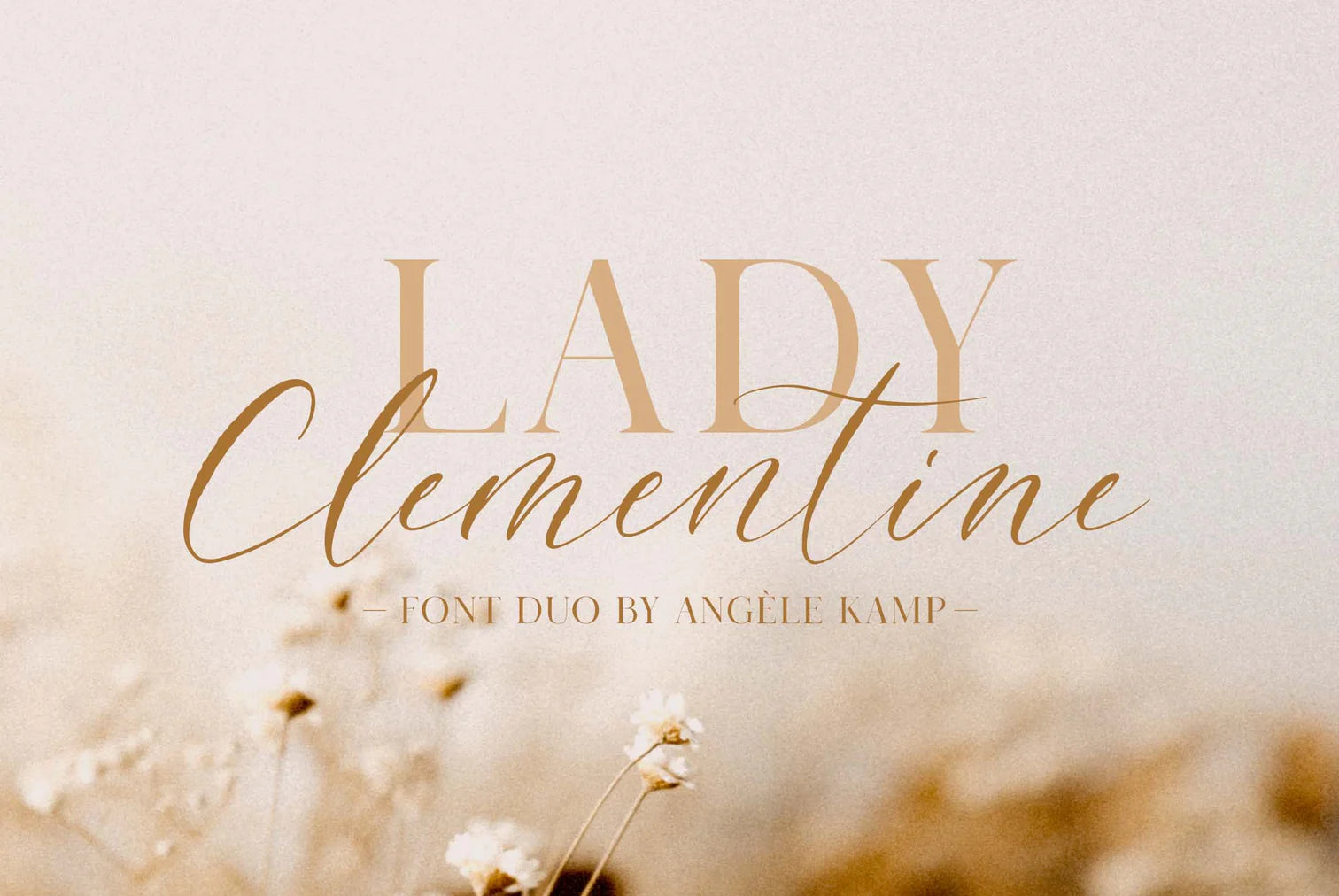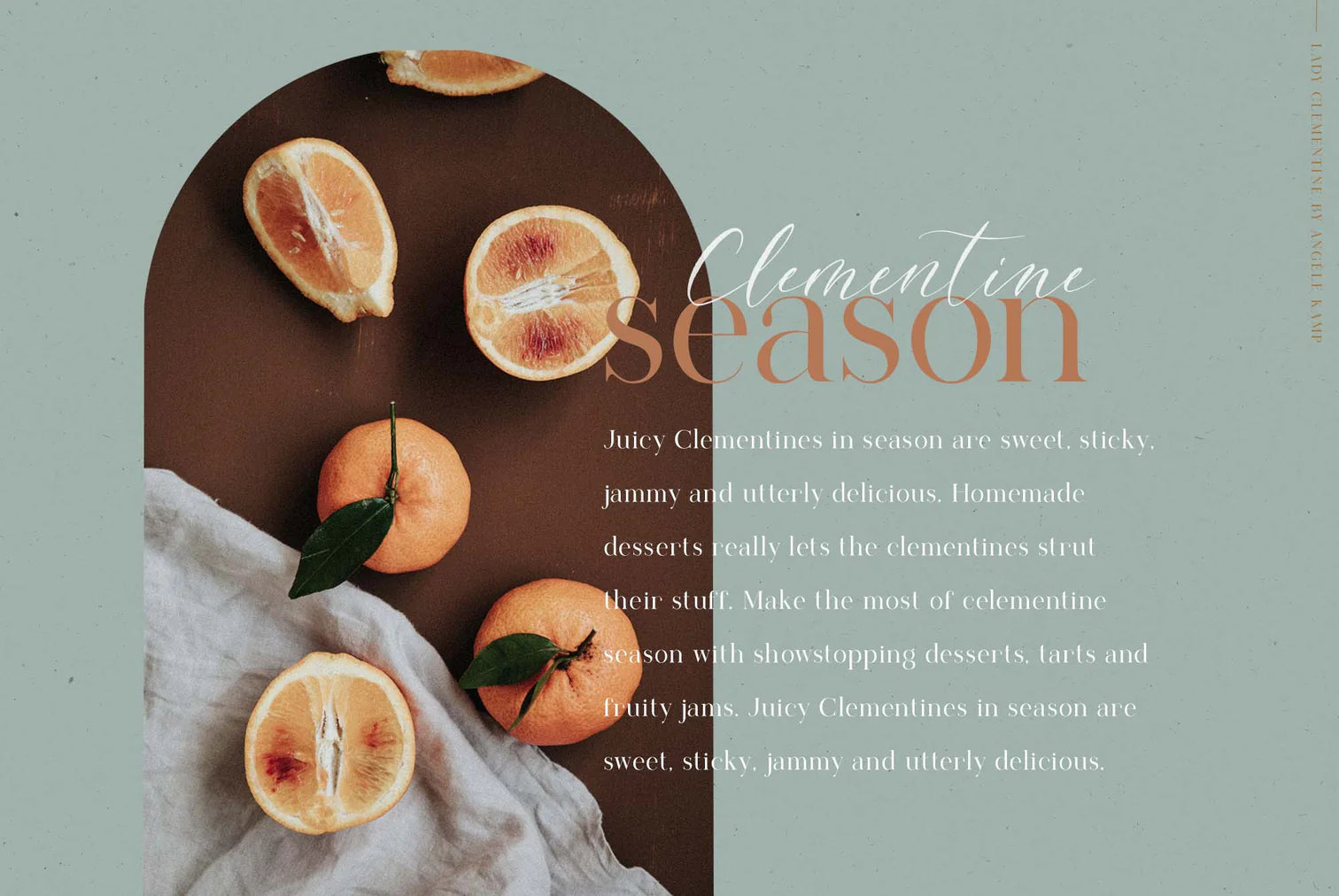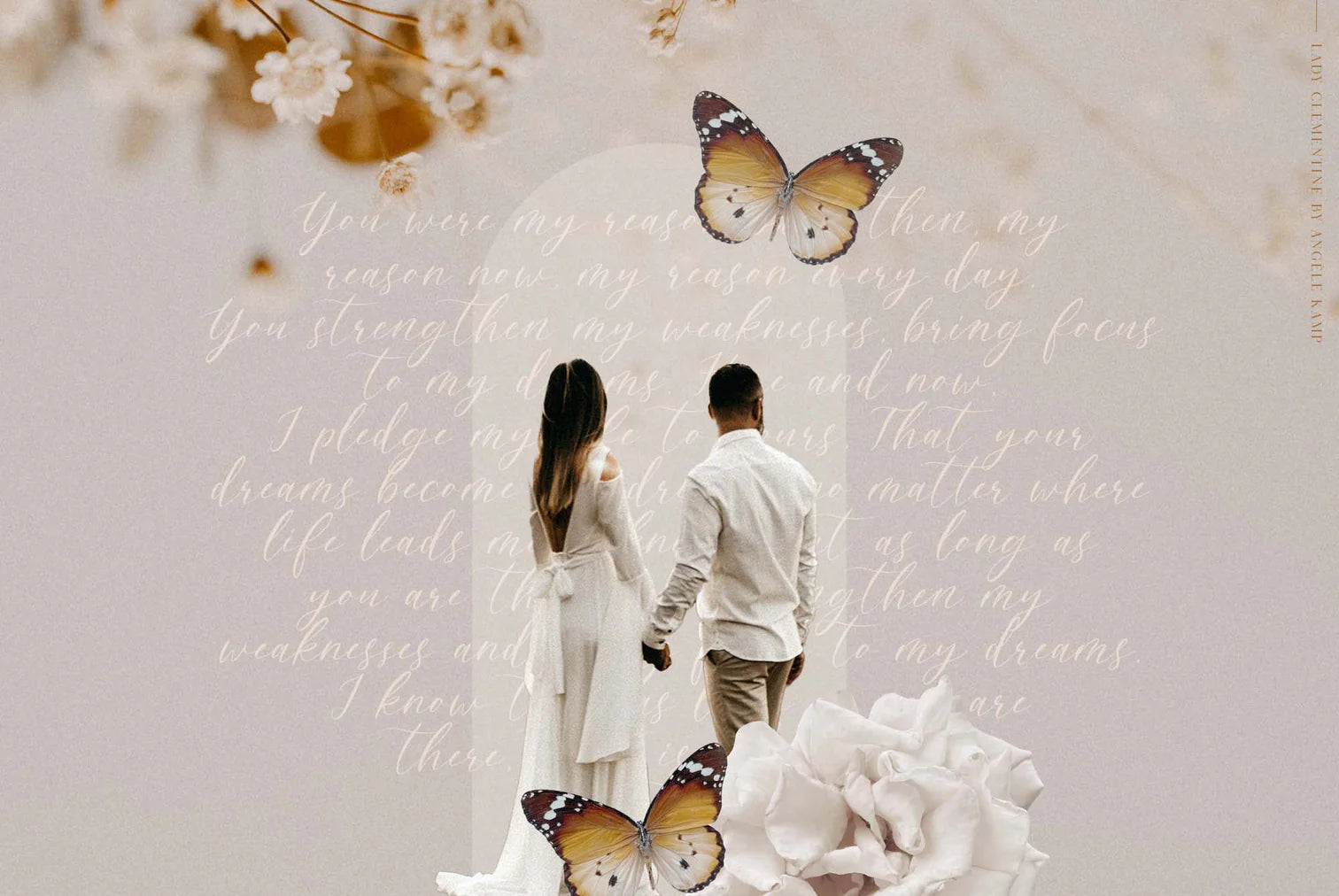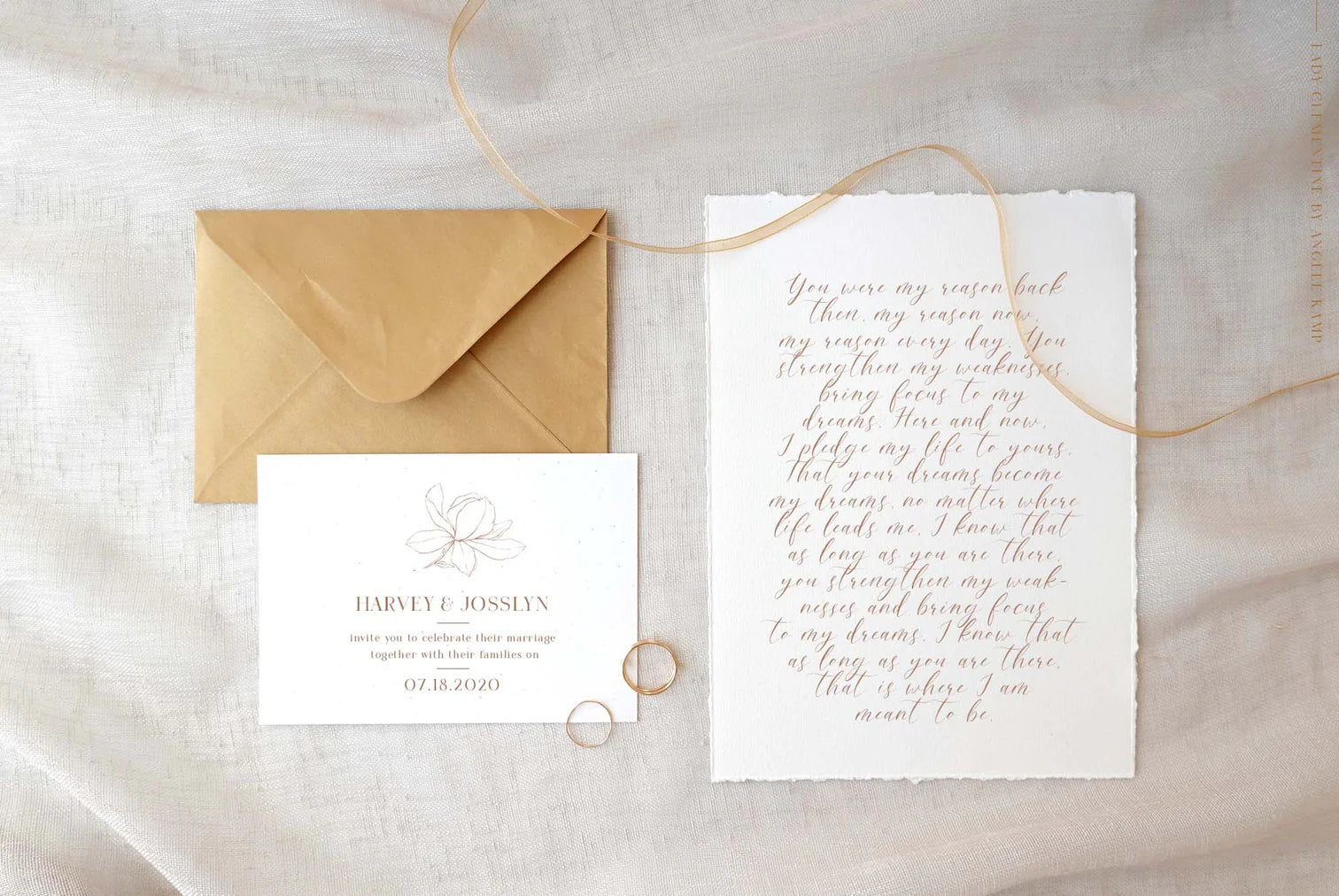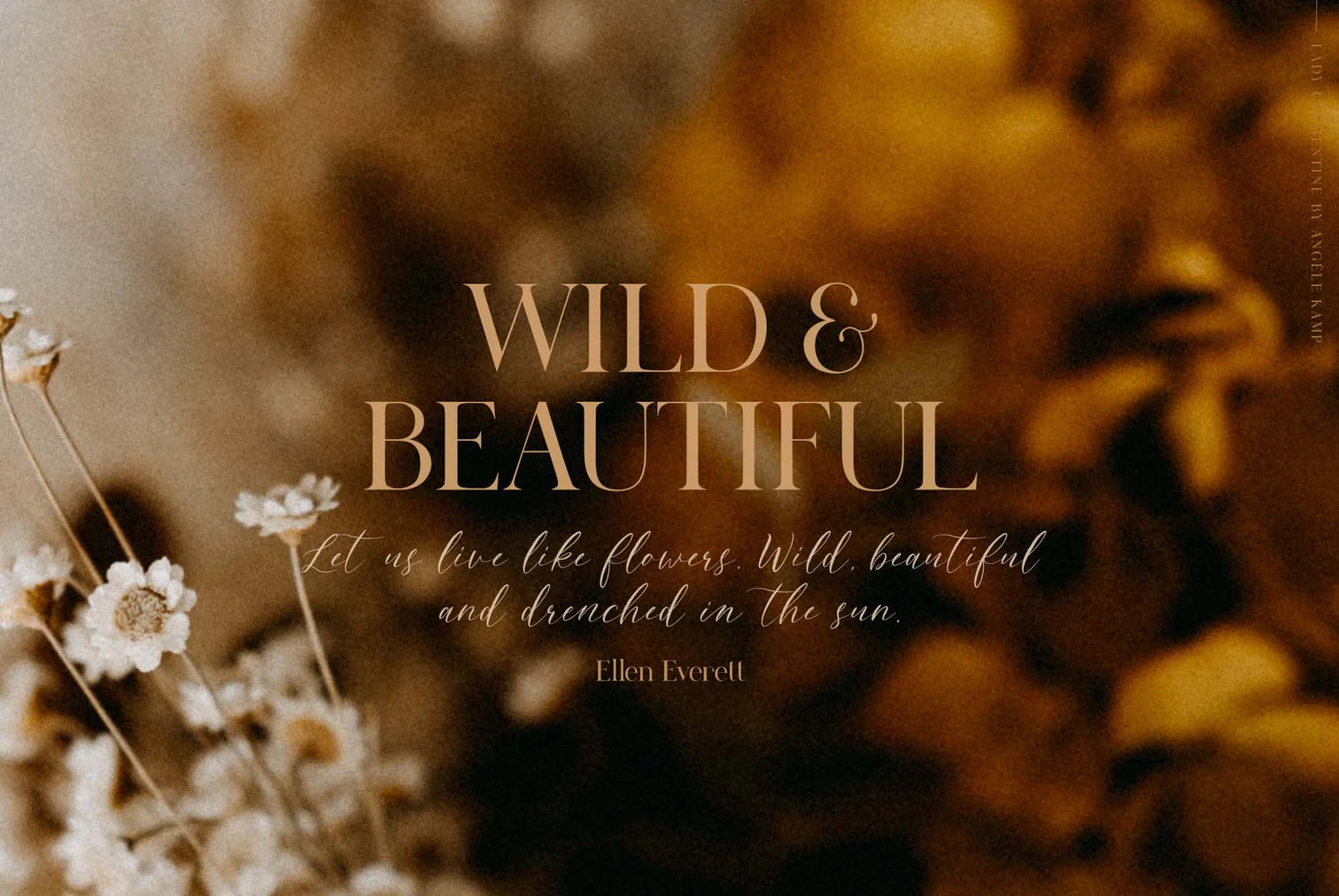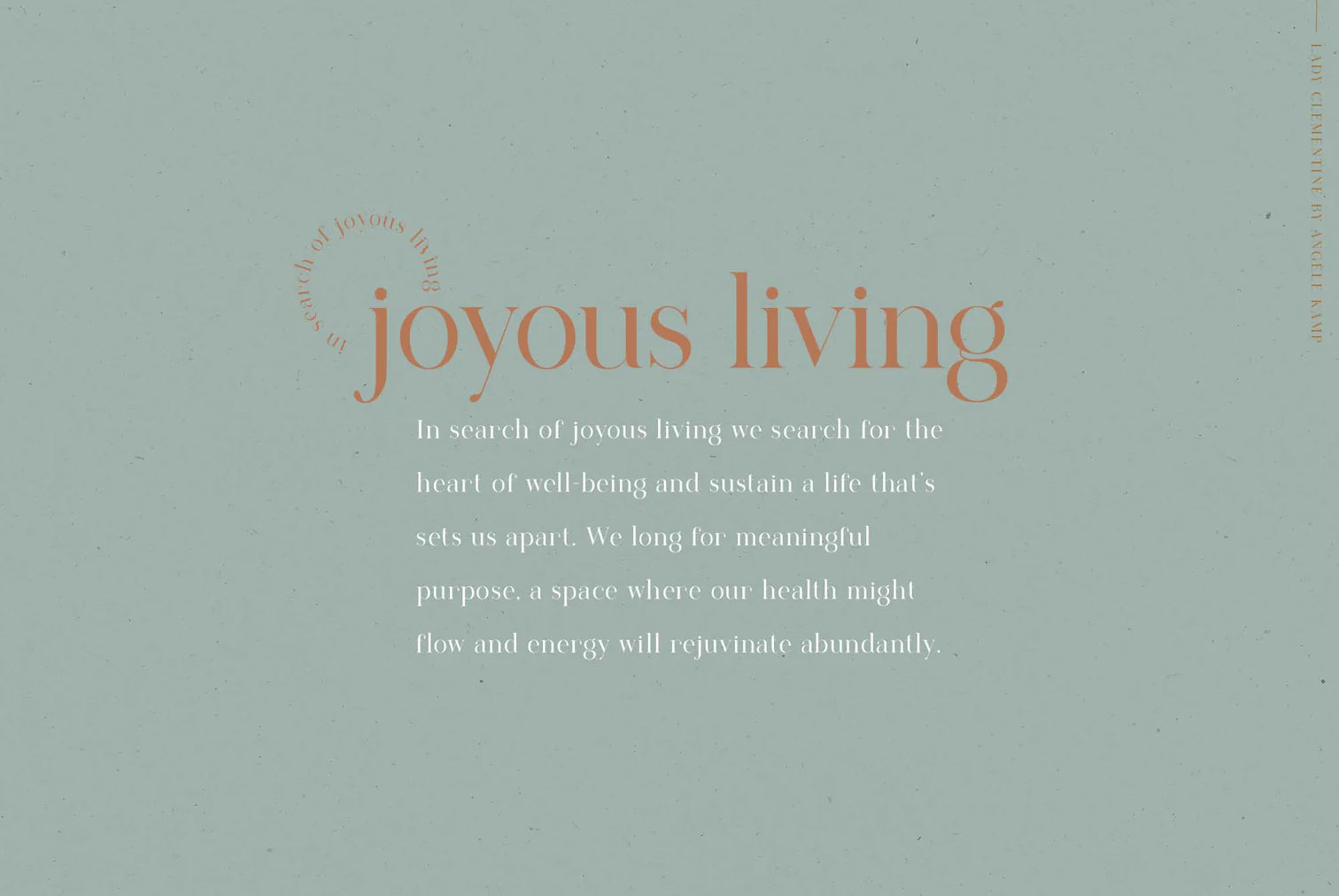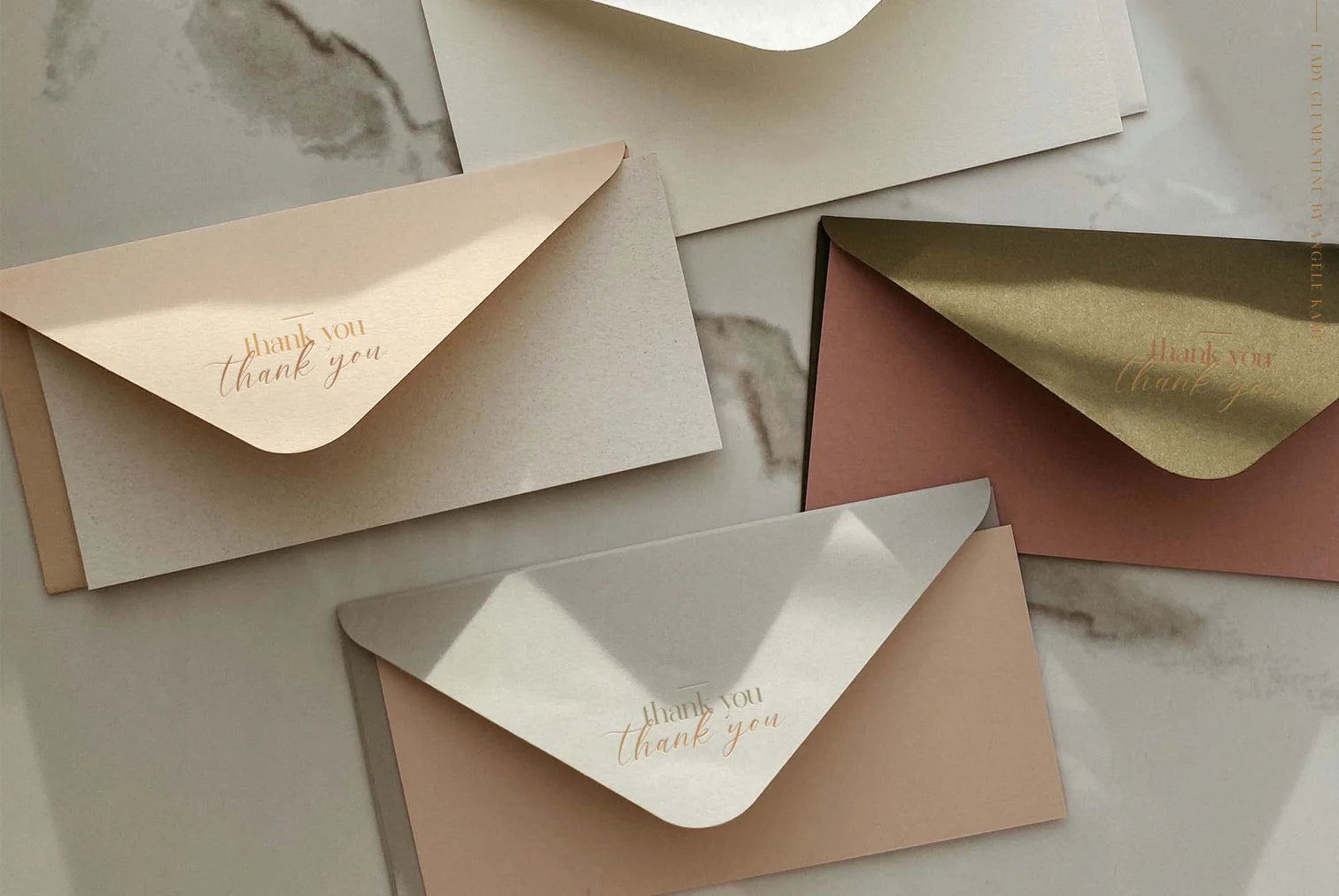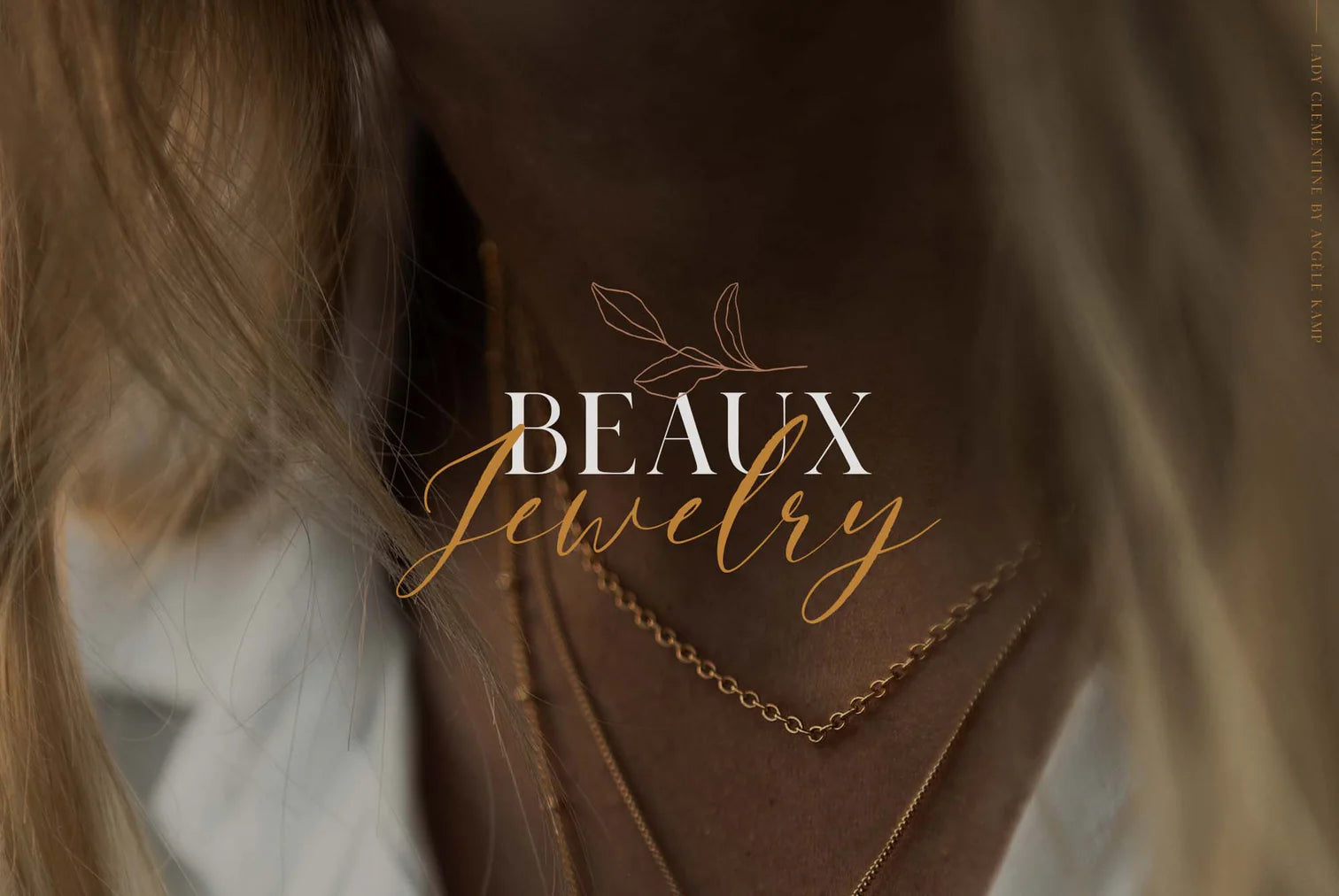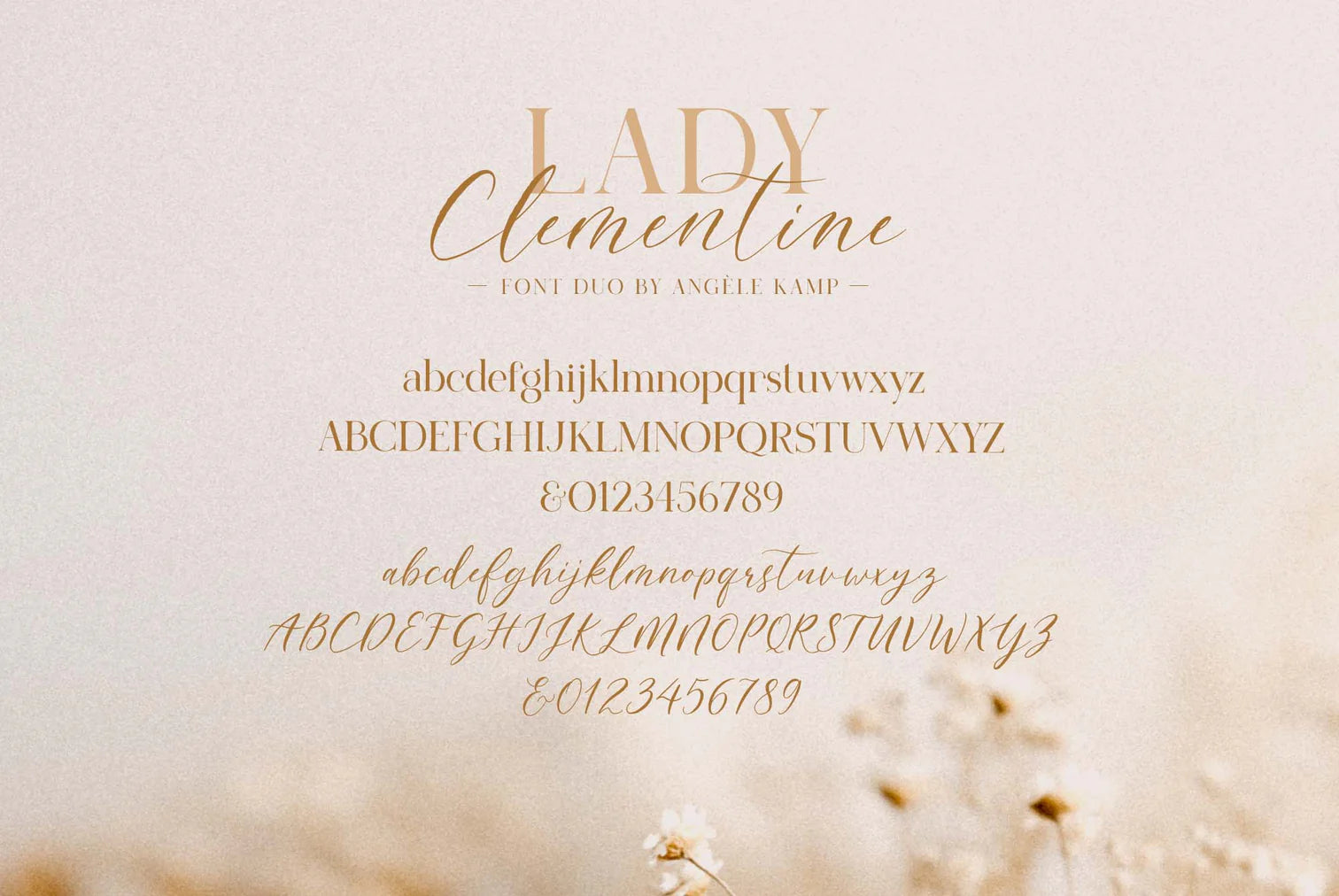
Clementine font duo
Meet Lady Clementine, a modern calligraphy script paired with a luxurious serif. A beautiful combination of fonts that will give your designs elegance and style.
This elegant font duo is timeless and can not be missed in your font collection. It is well suited for wedding invitations, save the date cards, stylish logos and feminine branding.